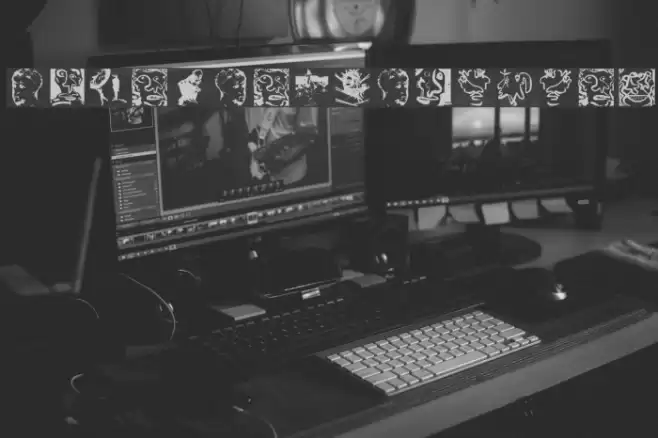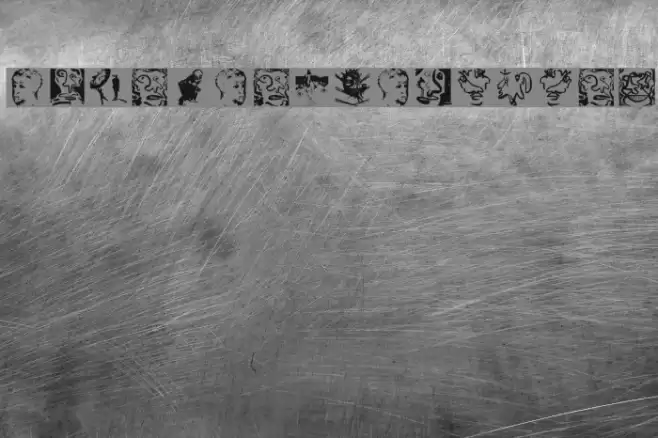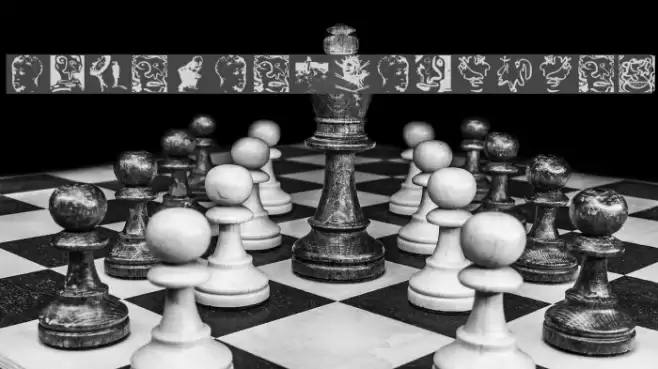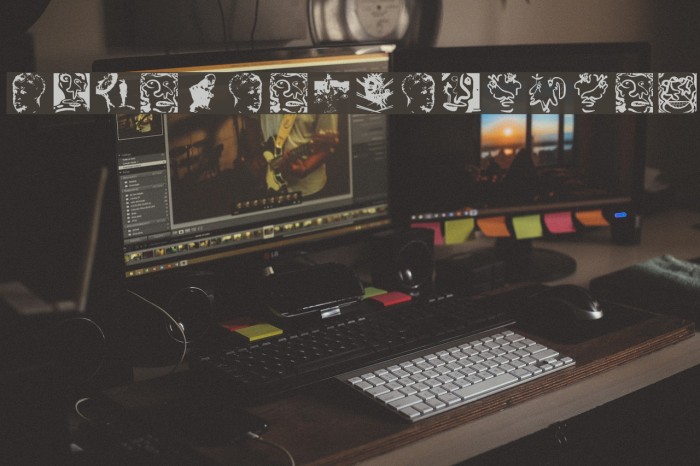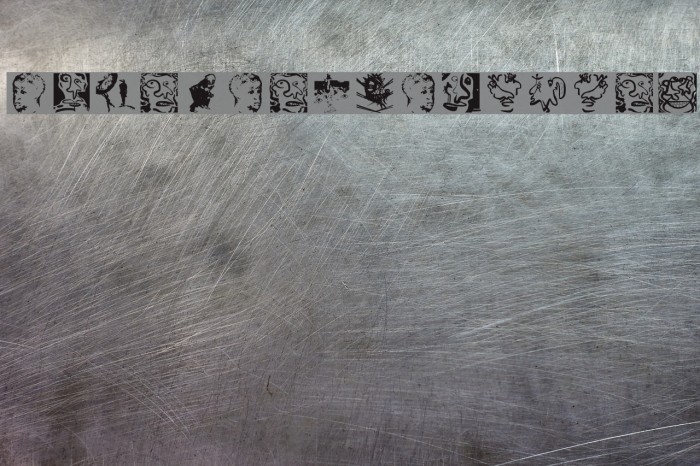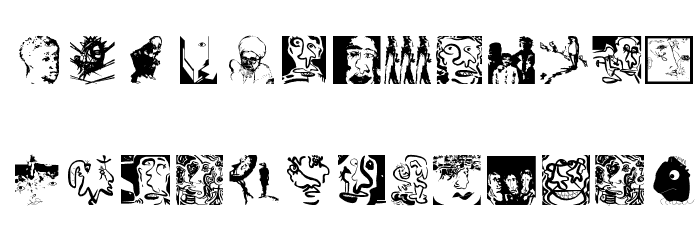
AfricainBatsOSix Font
AfricainBatsOSix Description
A highly decorative and illustrative font composed of unique, detailed black-and-white drawings for each character, featuring abstract faces, animals, and scenes. The glyphs are complex and artistic, lacking traditional letterforms, making them more suitable as pictorial symbols than readable text.
An artistic, pictorial font with each character as a unique illustration from Uncategorized fonts.
- Proposed Projects: Posters, album covers, art projects, experimental design, visual storytelling.
- Overall Style: Decorative, Artistic, Abstract
- Use Case: Logos, Posters, Art pieces, Display titles